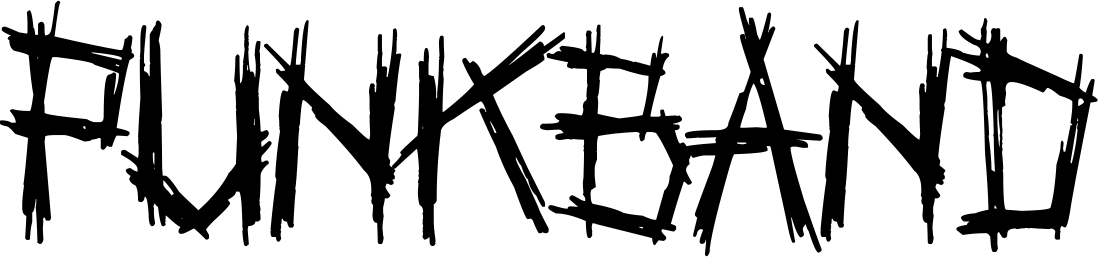
Punkband Font
Designed byColm Clafferty
Punkband is a sketch font that is designed in trash style and does not support lowercase letters. The edges of its characters are sharp, so, it conveys a sense of clutter, grunge, and dirty to the audience. It can also be used to design graffiti and posters for horror movies.
PUNKBAND by Colm Clafferty